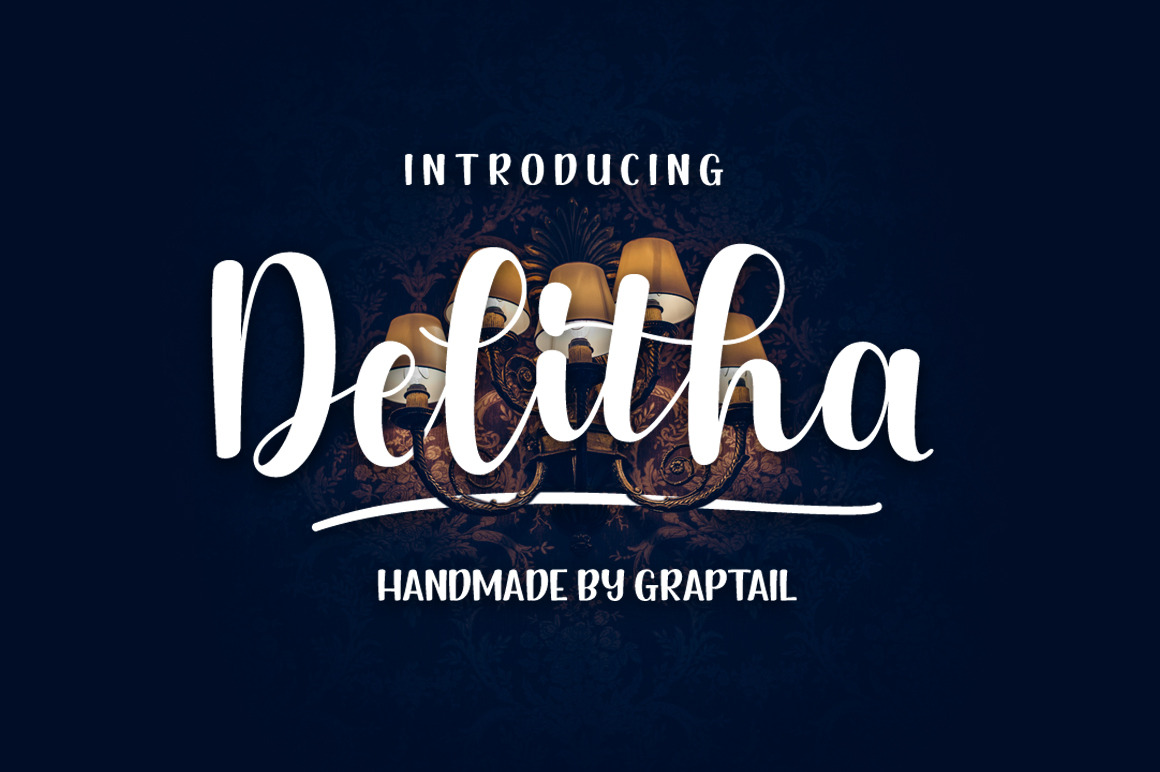
Delitha Font
Delitha is a beautiful hand painted script that comes with a set of extras. All letters have been carefully painted giving your words a wonderful flow. Delitha can be used for fashion, apparel, stationery, magazines, film, books and marketing.
After careful evaluation of the connections between characters, intelligent standards have been established for use of the OpenType feature, that used together with the ‘stylistic alternates, stylistic sets, and swash’ feature, offers a gentle and friendly pace. It can be accessed by using OpenType savvy program such as Adobe Illustrator and Adobe InDesign.